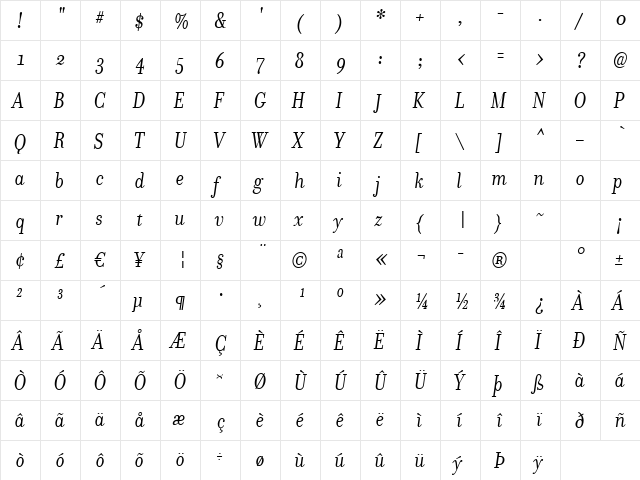
Donatora OSF Italic Font Preview
Donatora OSF Italic
Donatora OSF Italic Font Details
Design Context for Donatora OSF Typeface
Donatora OSF takes a measured approach to typography — its balanced proportions and neutral character make it a reliable workhorse for both digital and print work. Its italic angle brings a sense of urgency and motion to the letterforms.
Pro Tip: Try Donatora OSF for annotation and caption copy alongside an upright companion — the contrast in angle creates a dynamic but ordered typographic system.